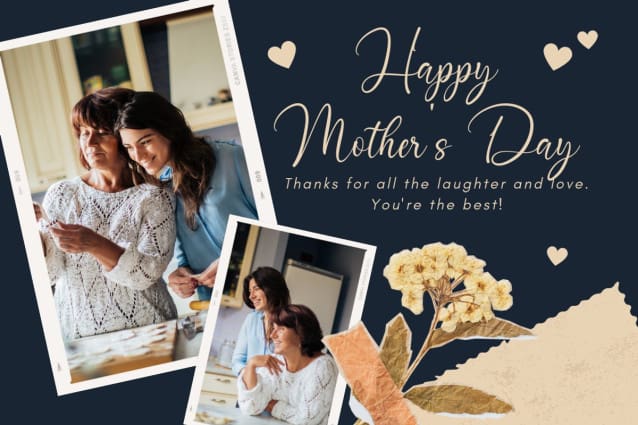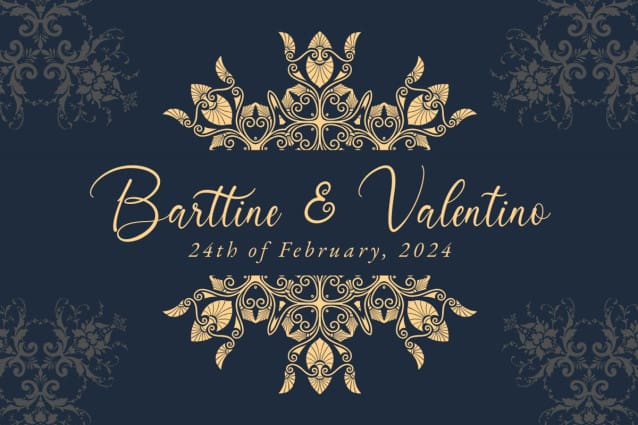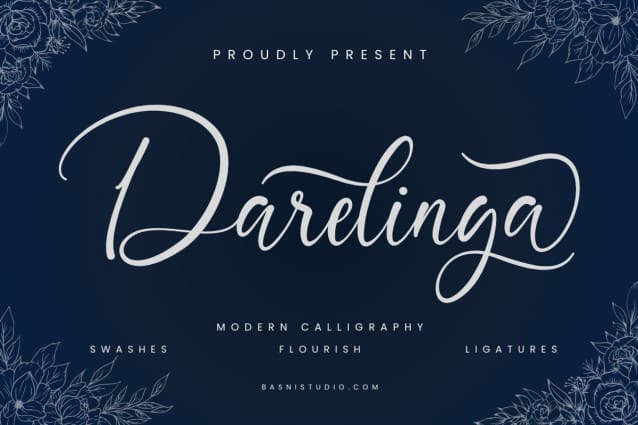
Darelinga Script Font
Darelinga Script Font – Modern Calligraphy Font, made with Naturaly & precision, perfect for branding, websites, and editorial designs. Includes all Characters letters, multilingual support, punctuation, binding. everything can be easily accessed using software that supports OpenType.